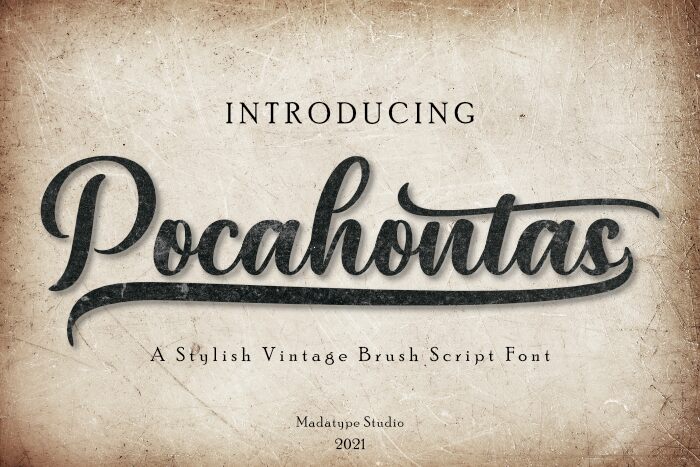
Pocahontas font by Andrimada Creative is a stunning semi-bold typeface that exudes the essence of vintage calligraphy with a touch of eroded charm. This font is perfect for projects that require an old-world aesthetic, such as wedding invitations, greeting cards, and social media graphics. Its elegant curves and intricate details create a sense of sophistication while the eroded effect adds rustic charm. Pocahontas font is sure to elevate any project it's used in with its unique blend of vintage and modern design elements.